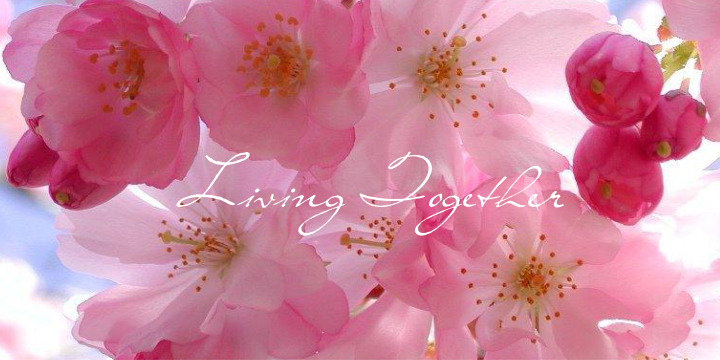
Living Together by Paulo W. is a free calligraphic font with an airy, highly flourished hand. Long entry and exit strokes sweep beneath the letters, and tall loops give each line a theatrical silhouette. Stroke widths shift from hairline turns to fuller downstrokes, keeping the forms lively.
Packaging suits its signature-like movement, especially fragrance, beauty, and boutique labels. The same sweeping forms suit wedding invitations and fashion editorial titles. Across these uses, the shared thread is lettering that doubles as ribbon-like decoration.